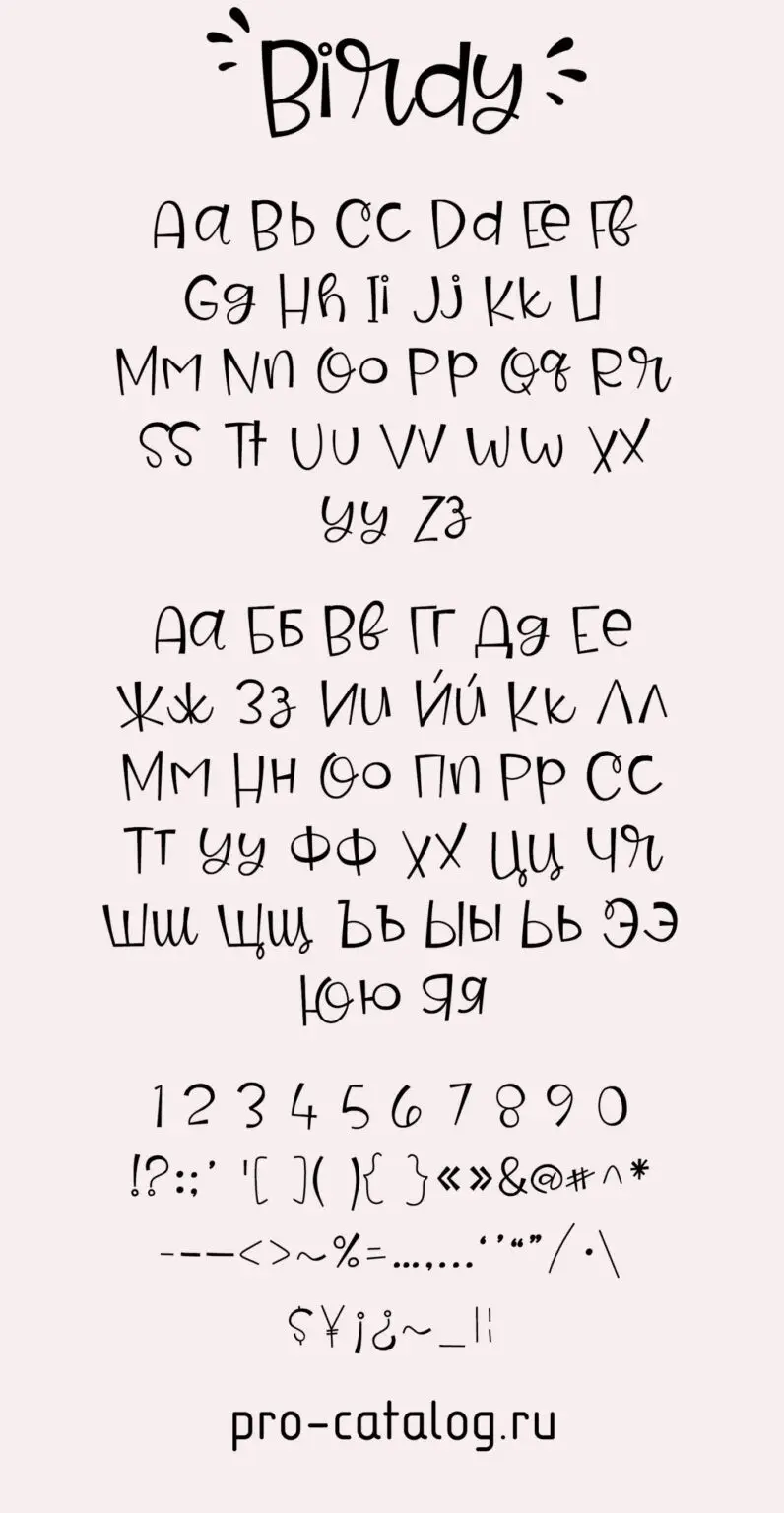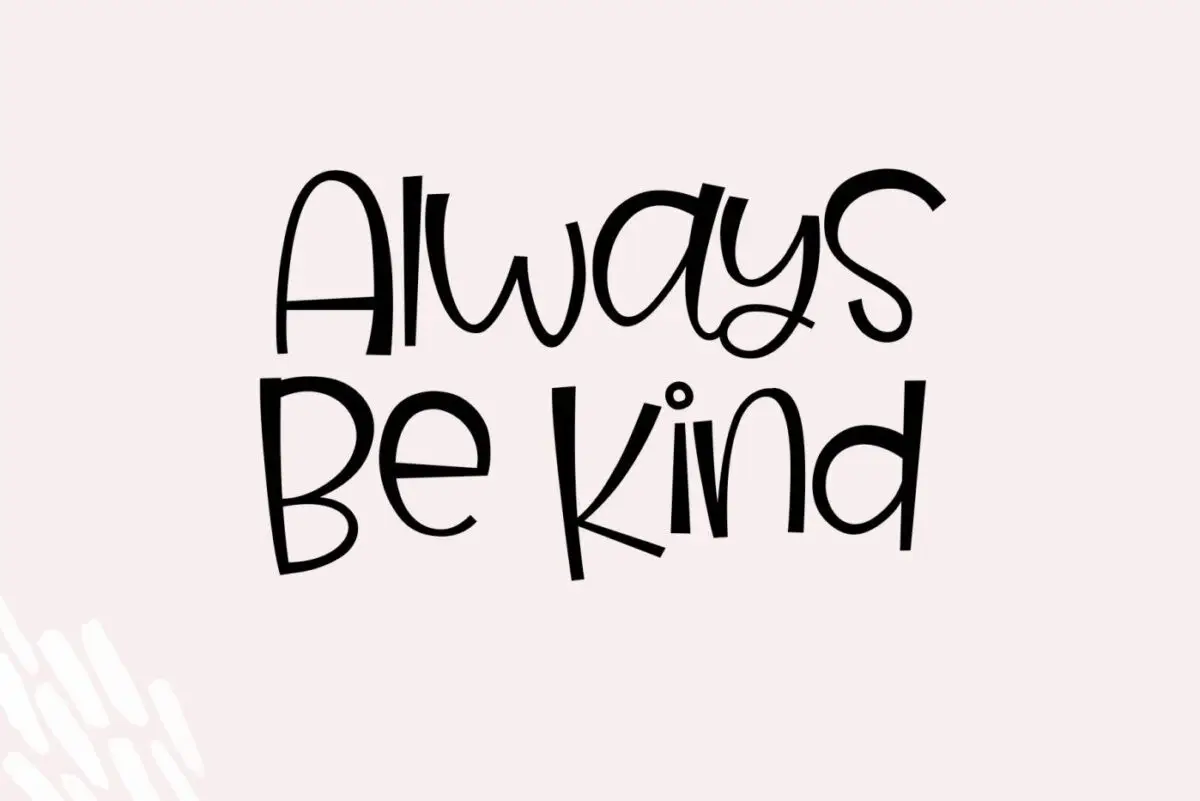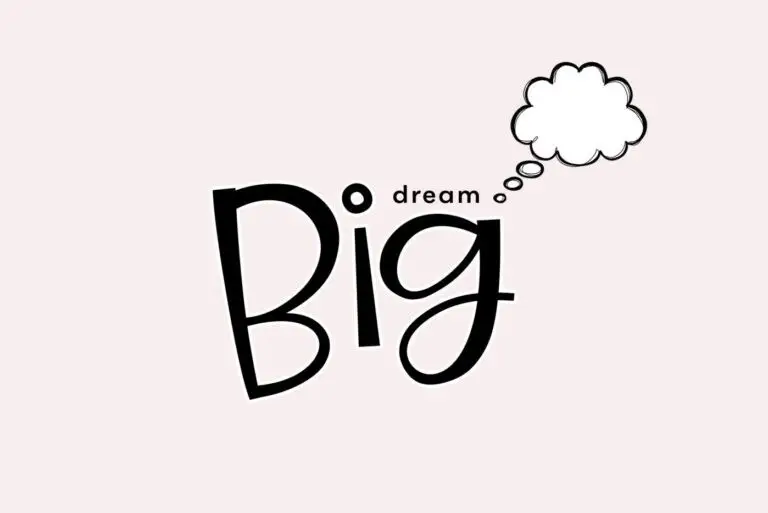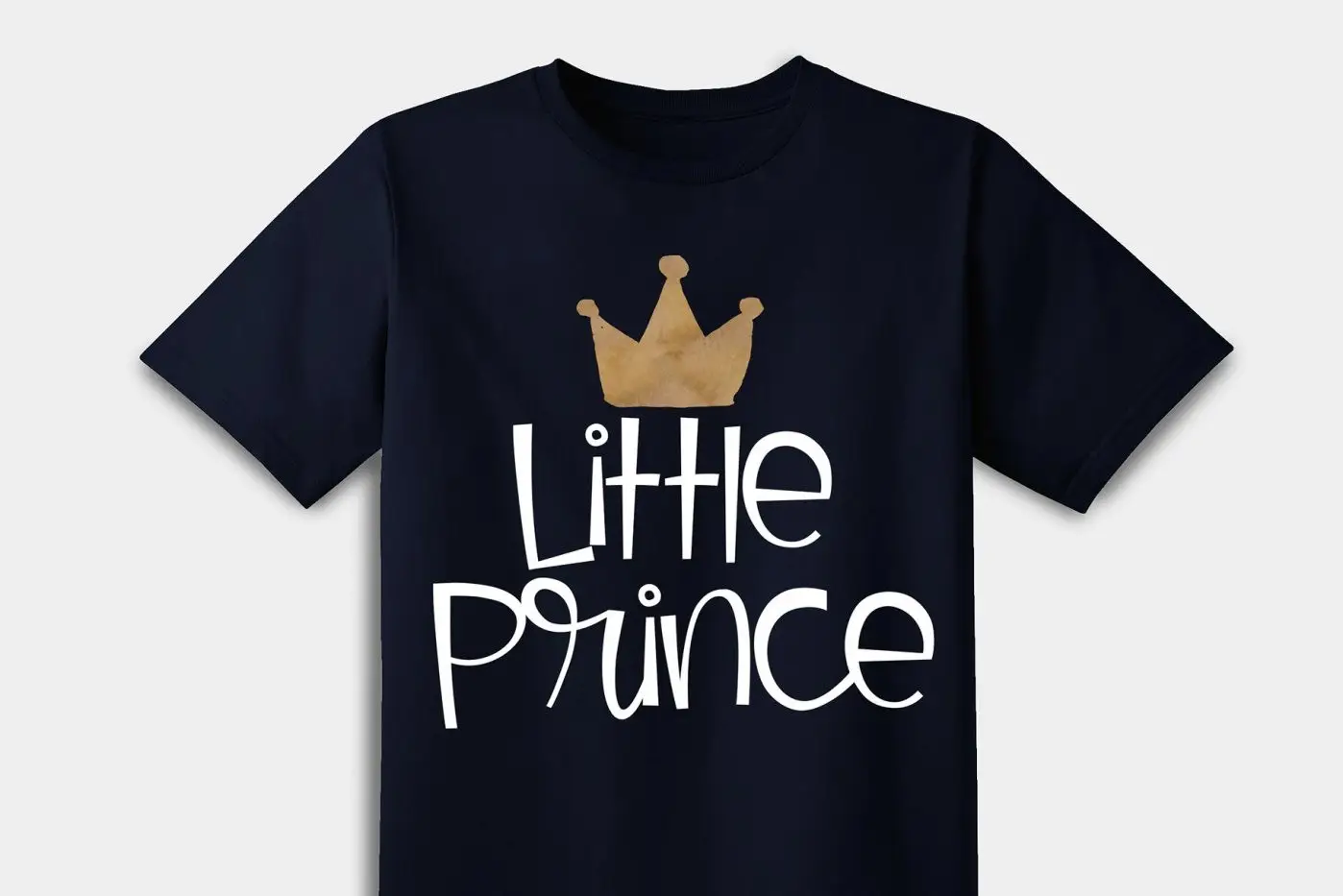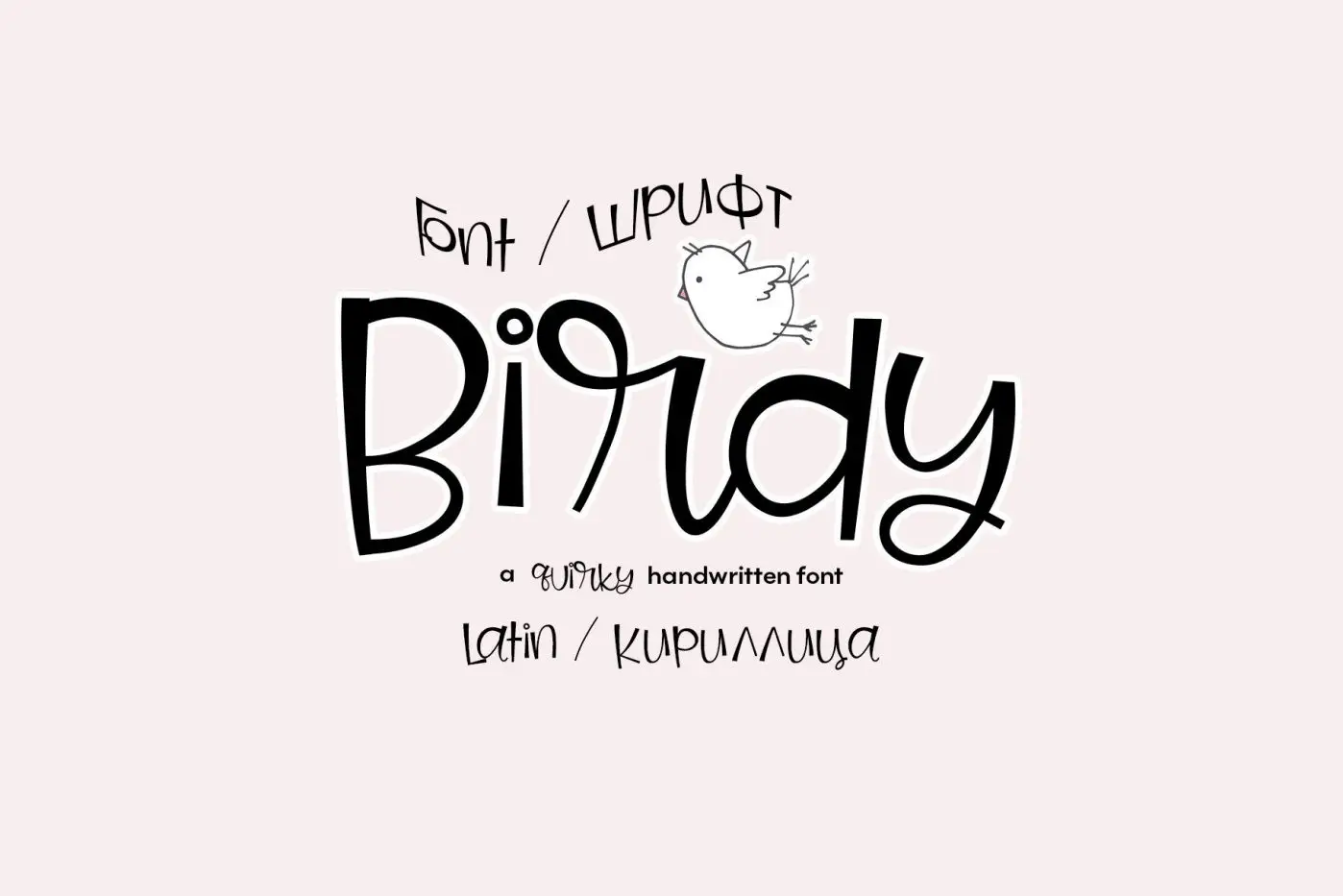
Birdy Font – A Quirky Handwritten Font for Creative Projects
The Birdy Font is perfect for crafters and designers looking to enhance their projects with a playful and charming style. Whether you’re working on logos, branding, wedding invitations, or social media graphics, this font will elevate your designs and make them stand out.
- ✅ Handwritten Style → Adds a personal touch to your projects.
- ✅ Accent Characters Included → Perfect for multilingual projects.
- ✅ Versatile Applications → Ideal for logos, cards, posters, and more.